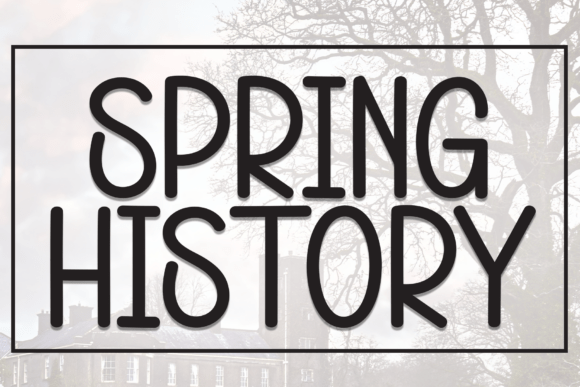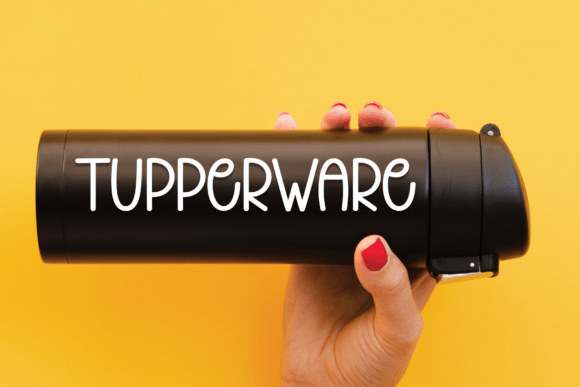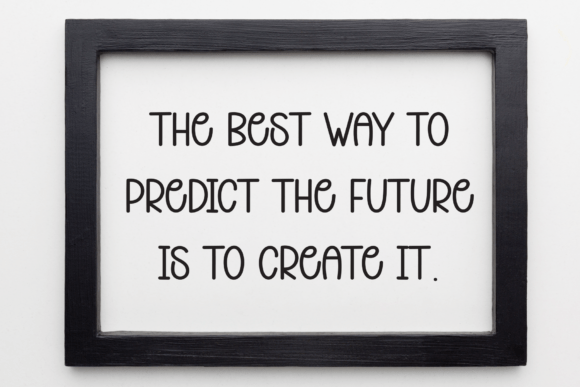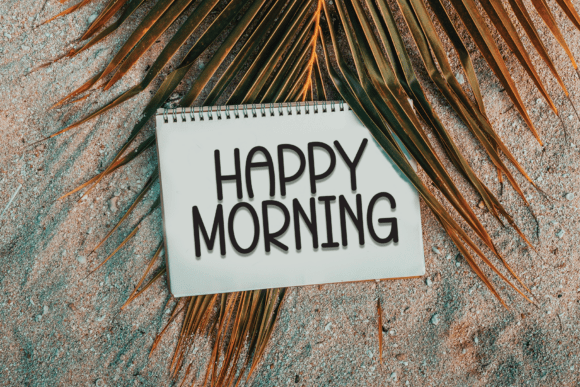
Spring History Font
About the Spring History Font
Presenting Spring History Font, a unique and stylish typeface that will make your work stand out. This handwritten display font brings charm and character to every letter. With its playful strokes and casual flow, it captures the essence of authentic handwriting—perfect for quotes, greeting cards, branding, and anything that needs a personal, heartfelt touch. Whether you’re crafting for kids or designing a modern logo, this font adds warmth and whimsy to your work.
Spring History Font Usage Examples
Spring History Font Example